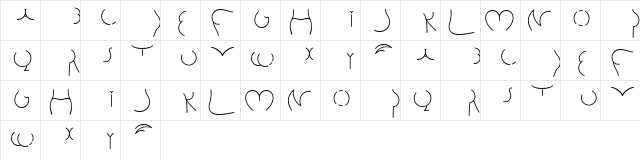
Alphabutt Letters A Regular
| Foundry | Loretta Aho |
| Designer | Brandon Korvas |
Design Context for Alphabutt Letters A Typeface
Alphabutt Letters A is a composed and adaptable typeface that performs quietly and consistently across a wide range of design contexts.